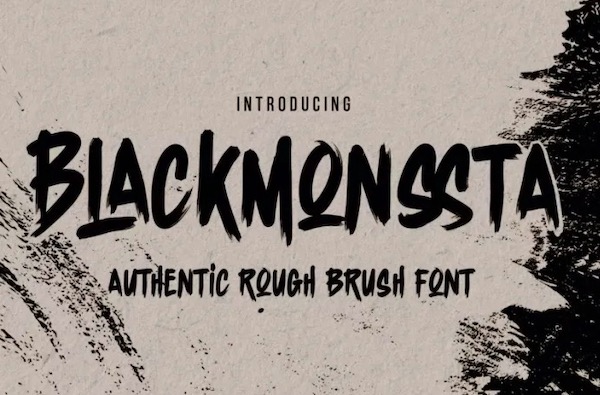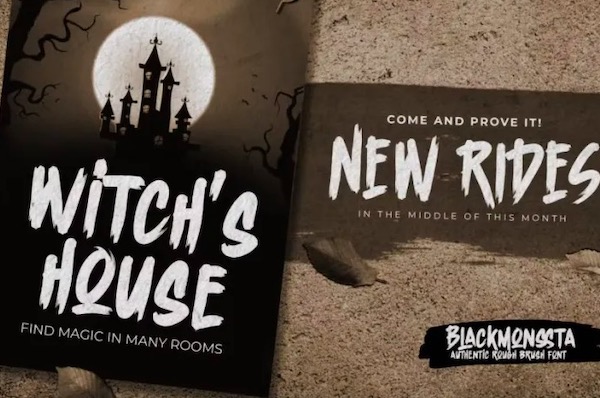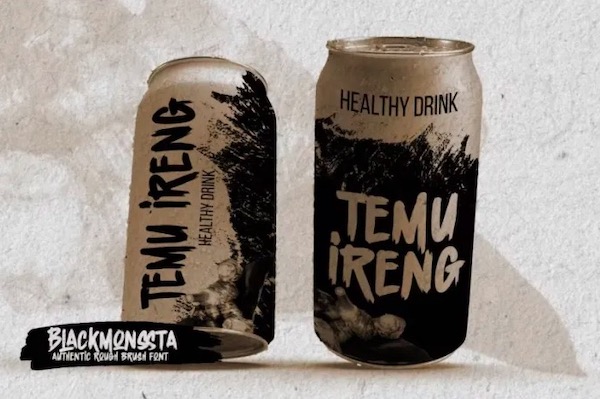
Blackmonssta is a handWritten script Font with an Authentic Rough Brush Style and elegant style, this script font is perfect for your creative designs, for example, watermark on photography, and perfect for logos & branding, photography, invitation, watermark, advertisements, product designs, stationery, wedding designs, label, product packaging, special events or anything that need Slash Revolver taste. That is why Blackmonssta has an authentic and strong characteristic more natural look. You can activate Ligature OpenType panel and alternate glyphs.
Blackmonssta Handwritten Brush Font